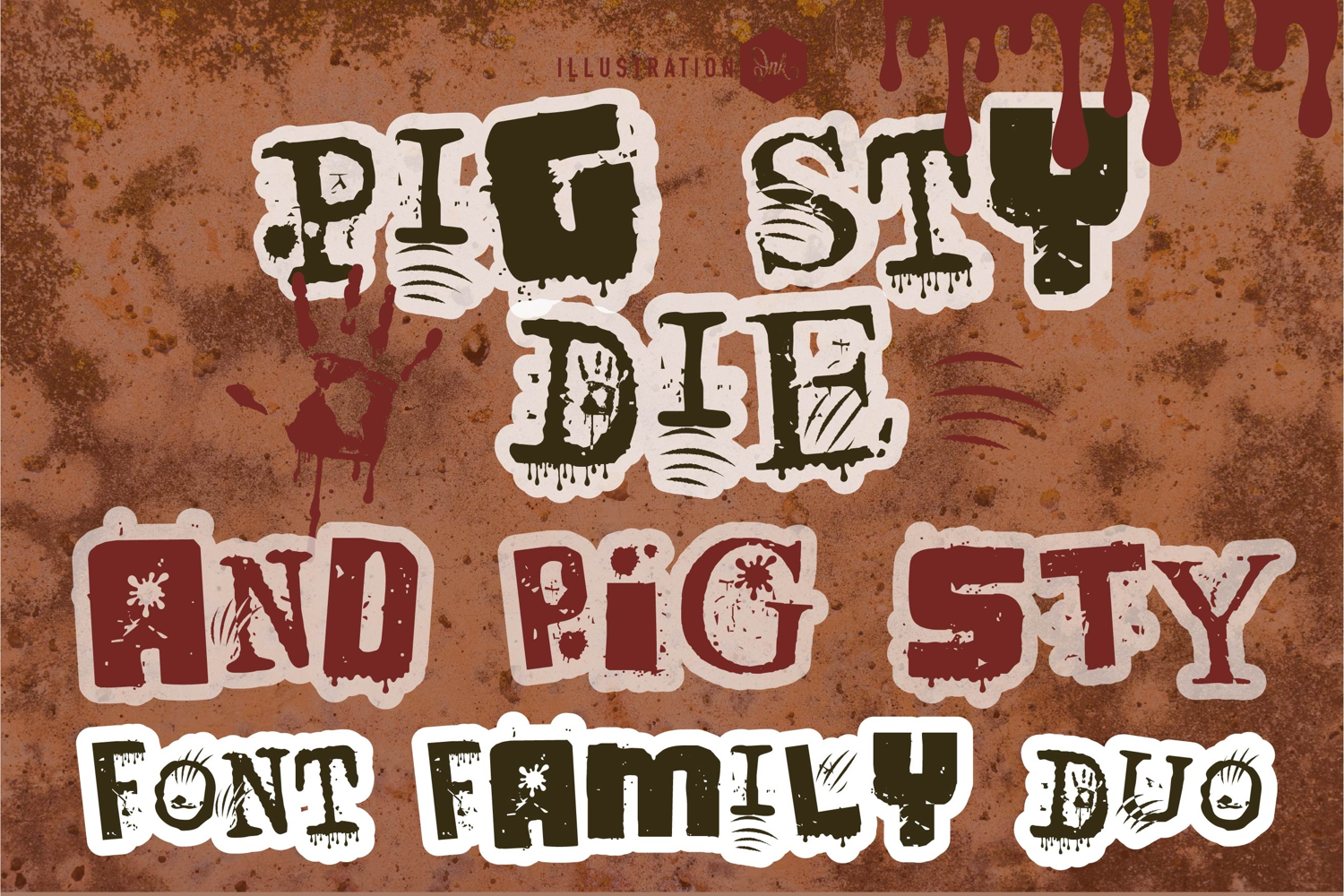
Pig Sty Die Font Duo
This hand-crafted font duo combines a grungy, messy, murderous font with a less scary version of the grunge font. With all family members combined of the two fonts, you get 6 fonts all together!